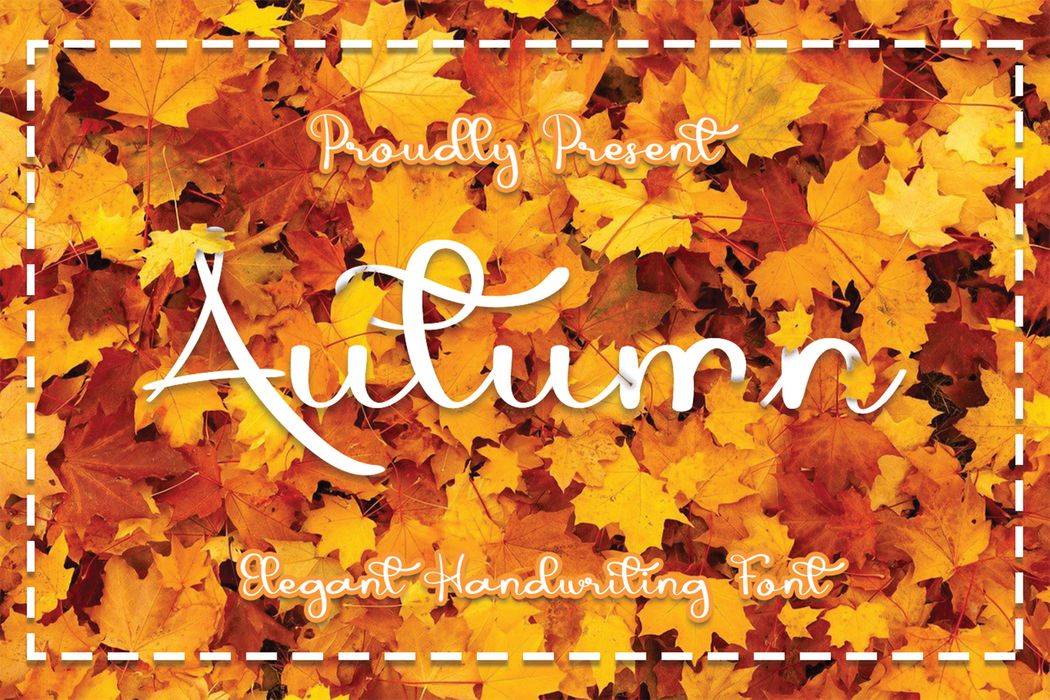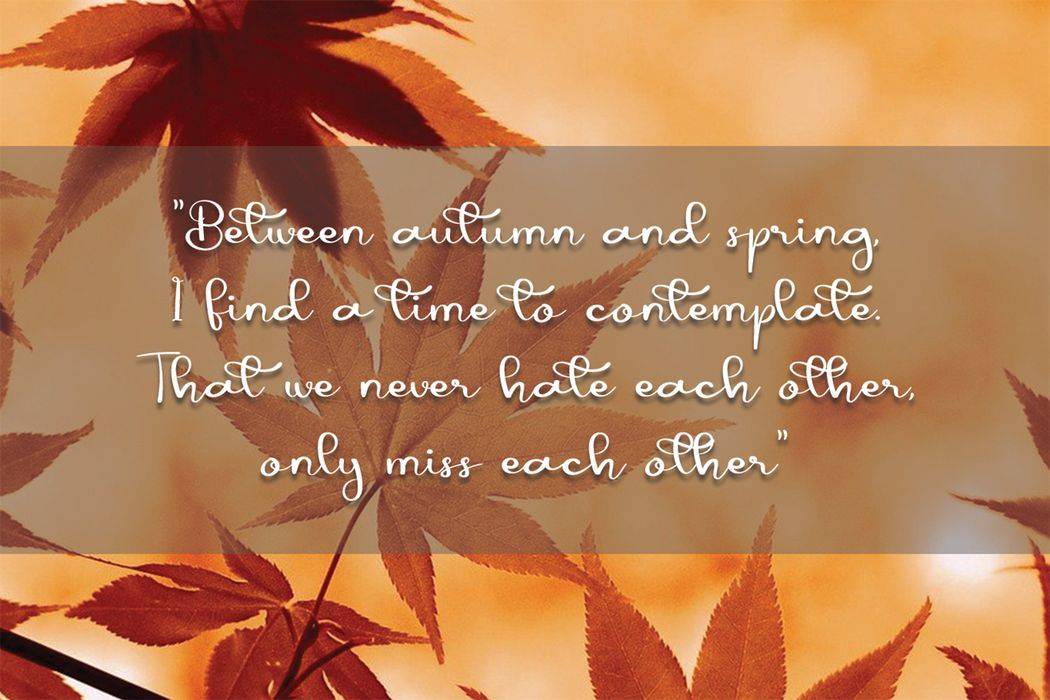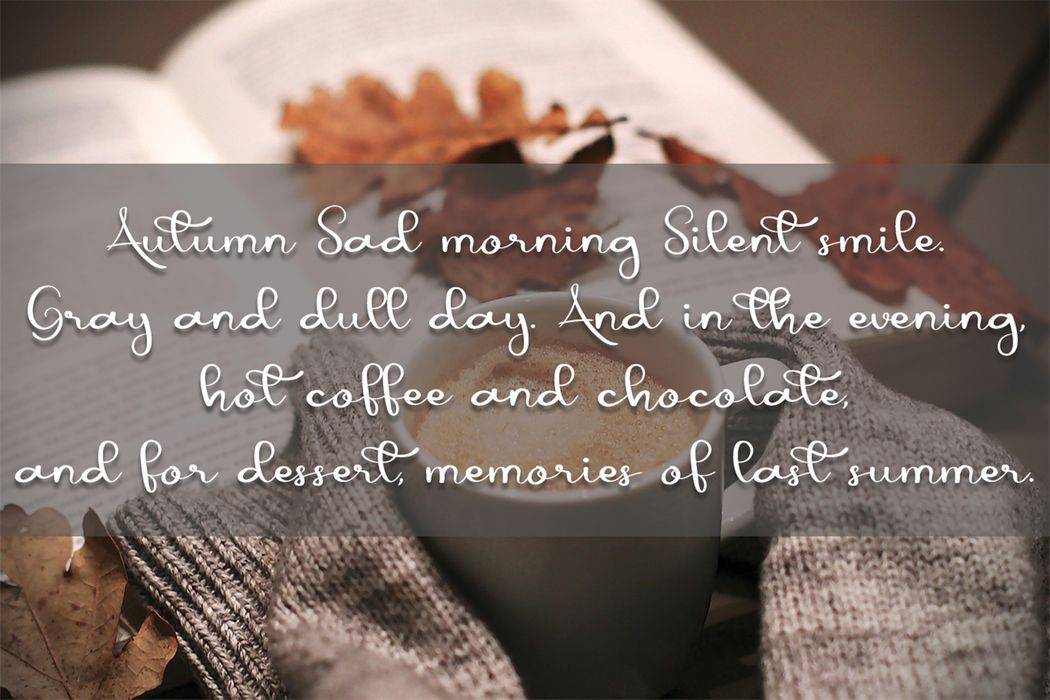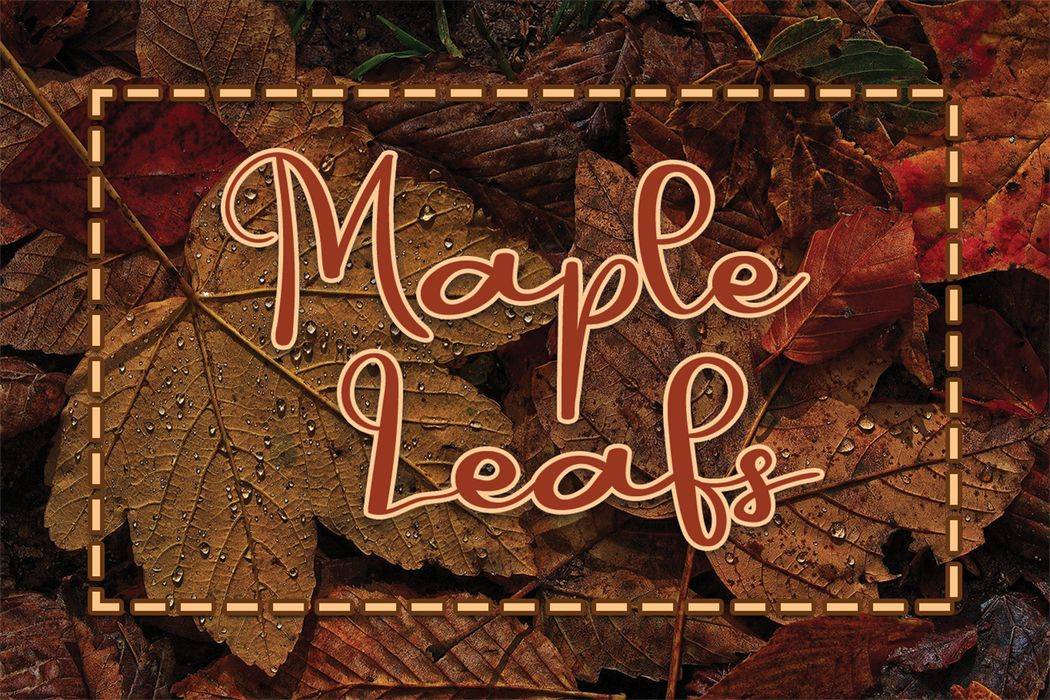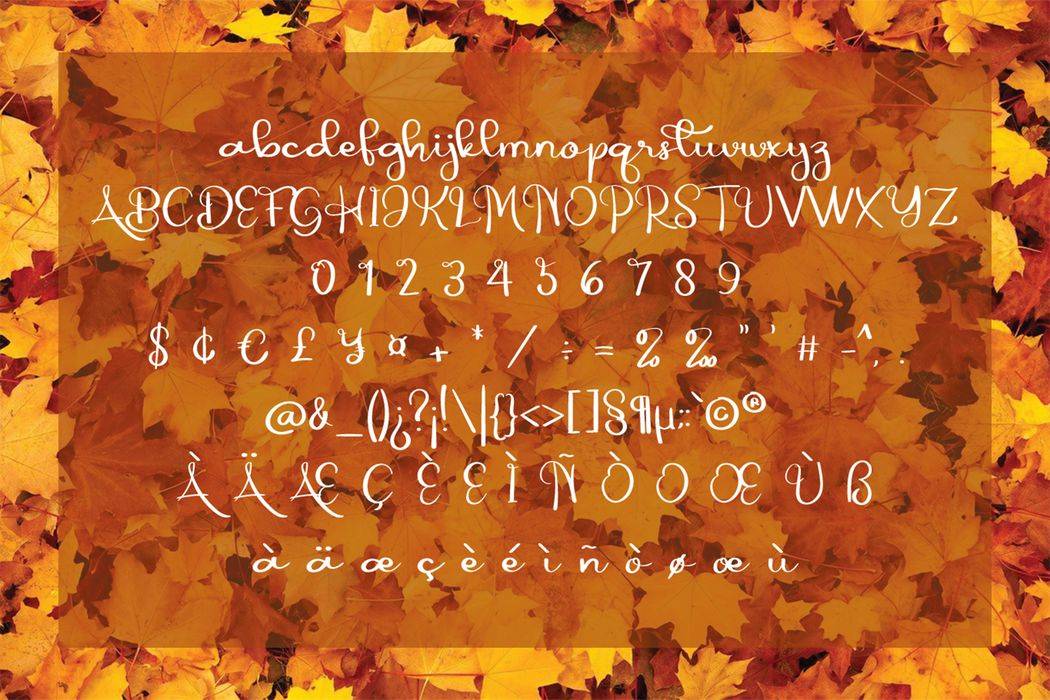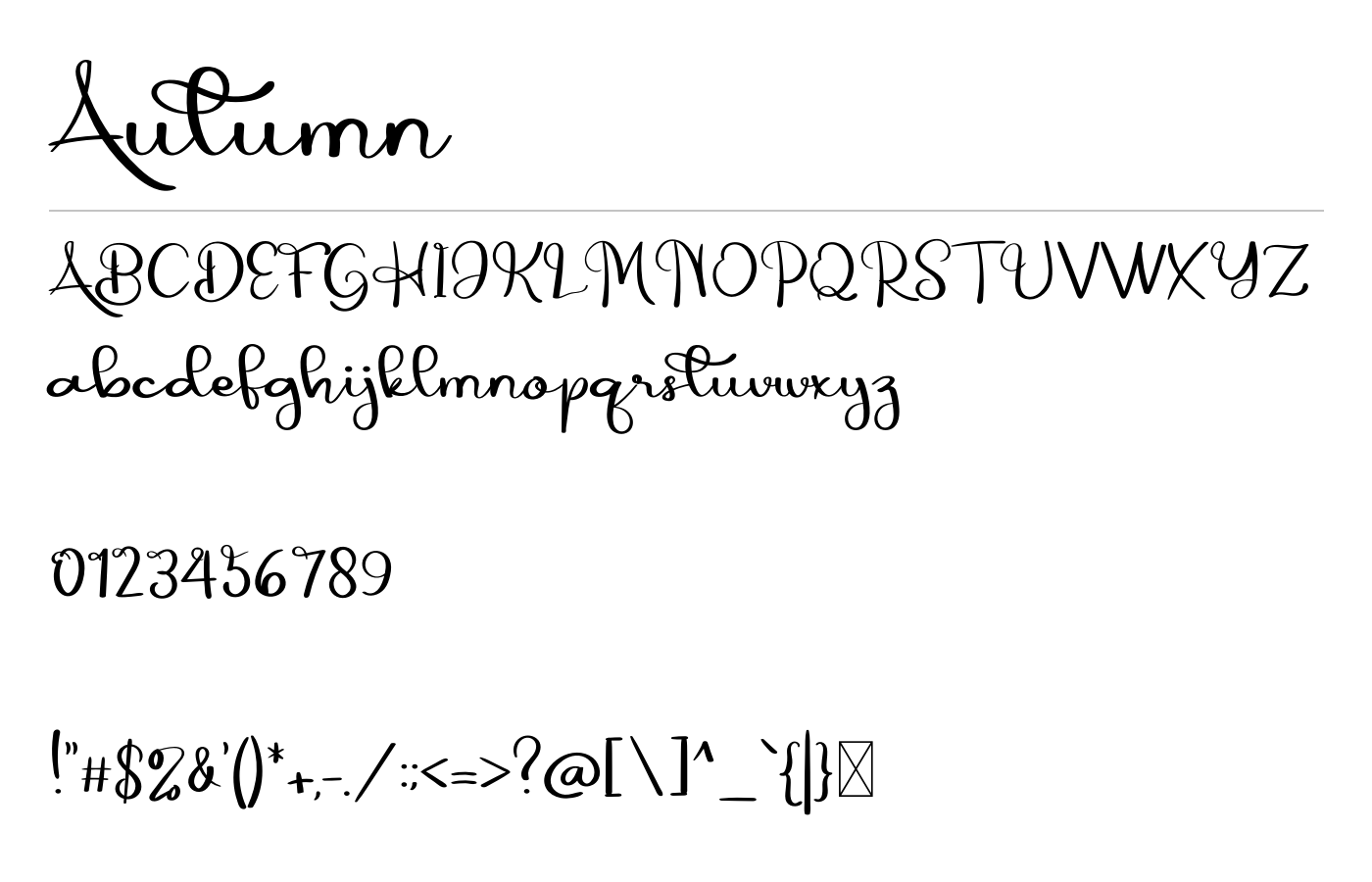
Autumn Font is a charming script typeface that blends elegant curves with playful flourishes, giving it a warm and inviting personality. Its smooth, moderate weight and fluid letterforms make it ideal for adding a personal, handcrafted feel to invitations, branding, and decorative headlines, especially in projects aiming for a feminine or whimsical touch. This font works beautifully where a stylish yet approachable look is desired, such as in fashion, lifestyle, or creative designs.
Autumn Font
About Autumn Font